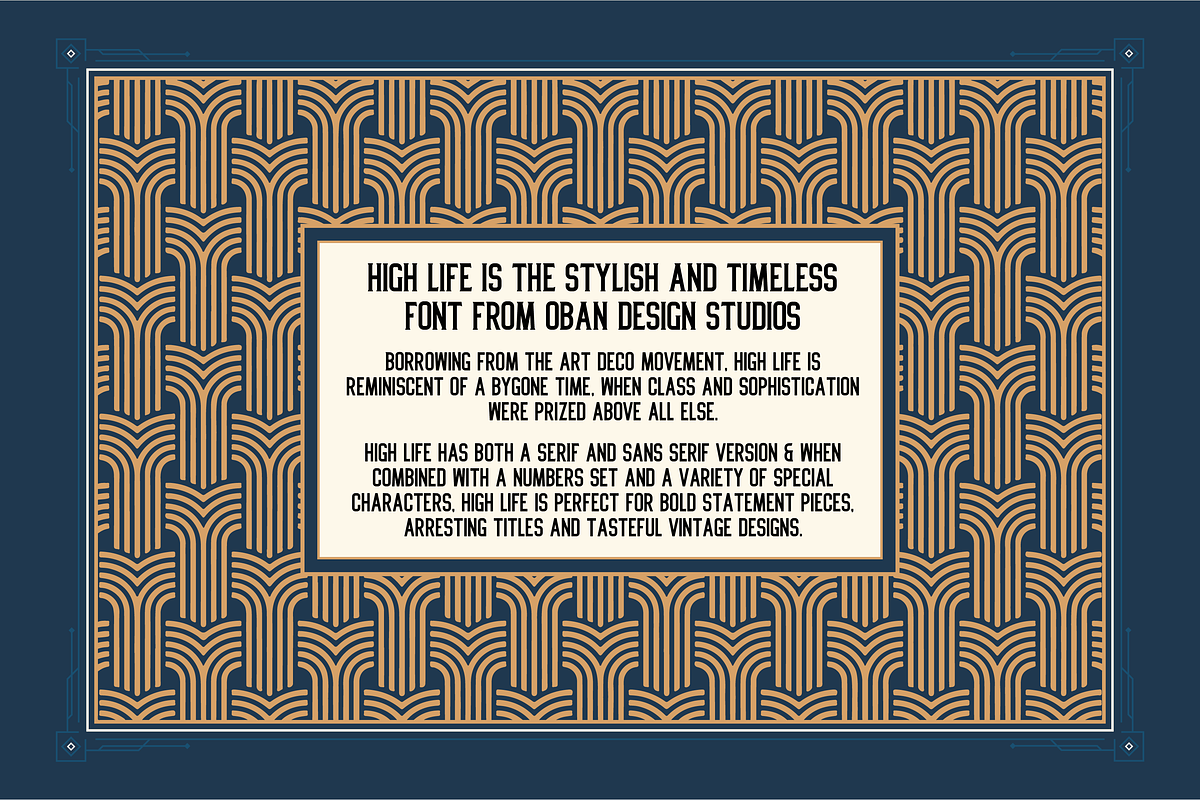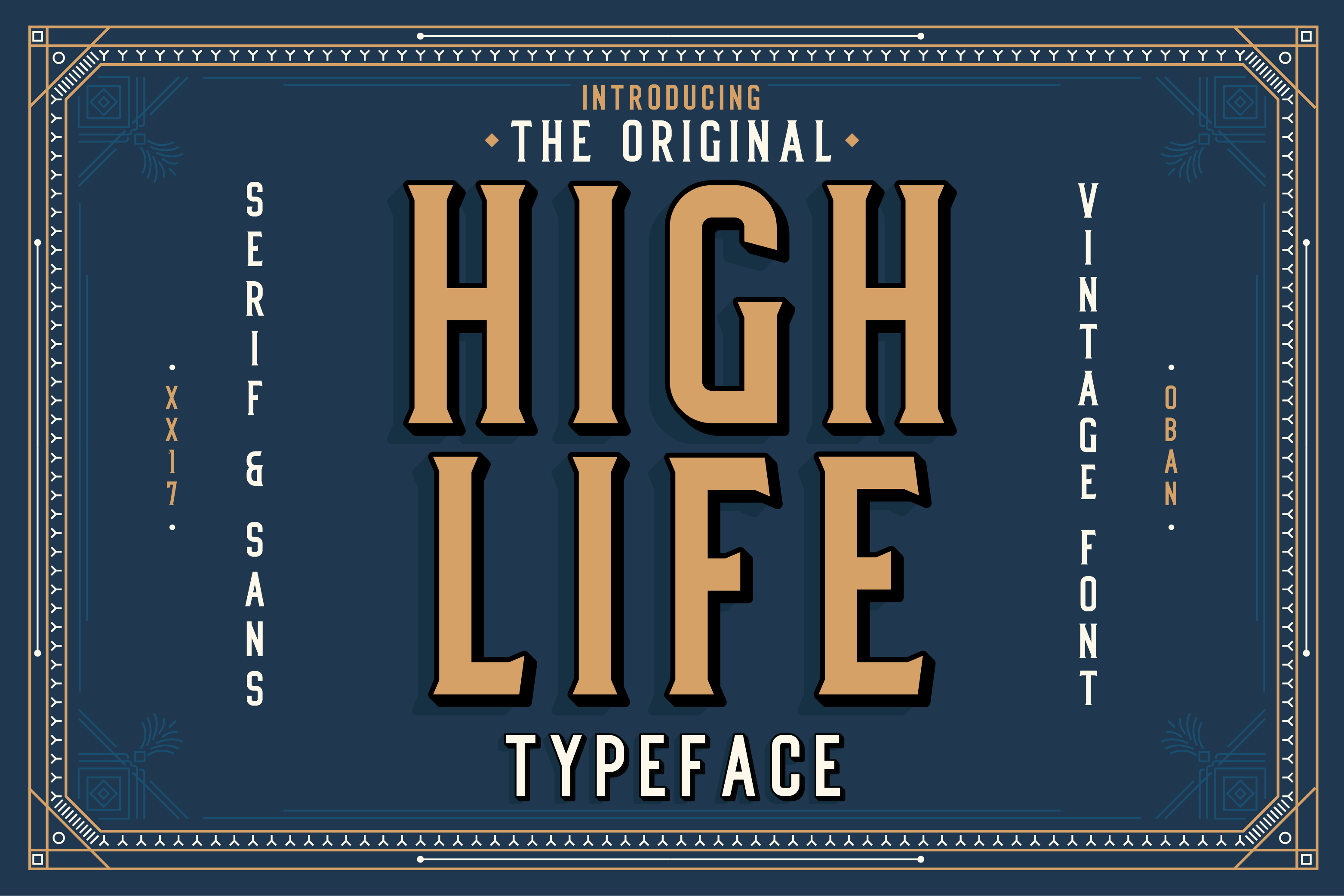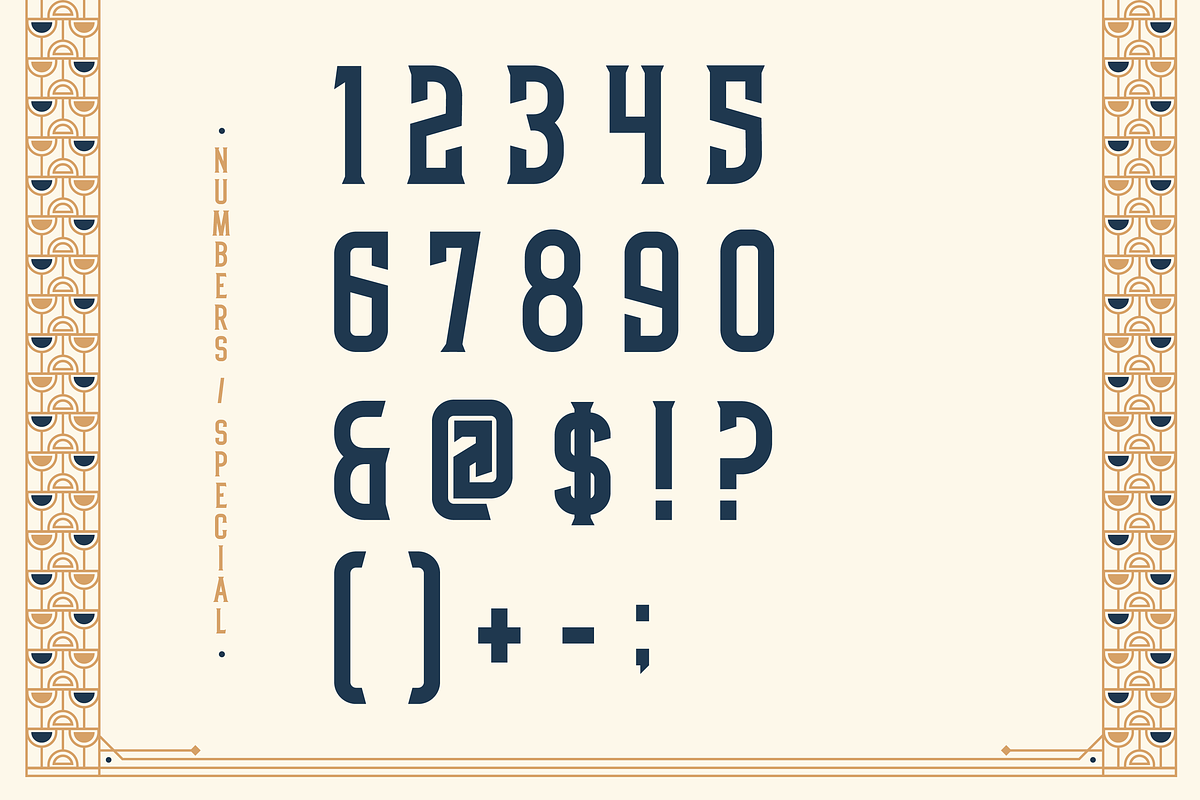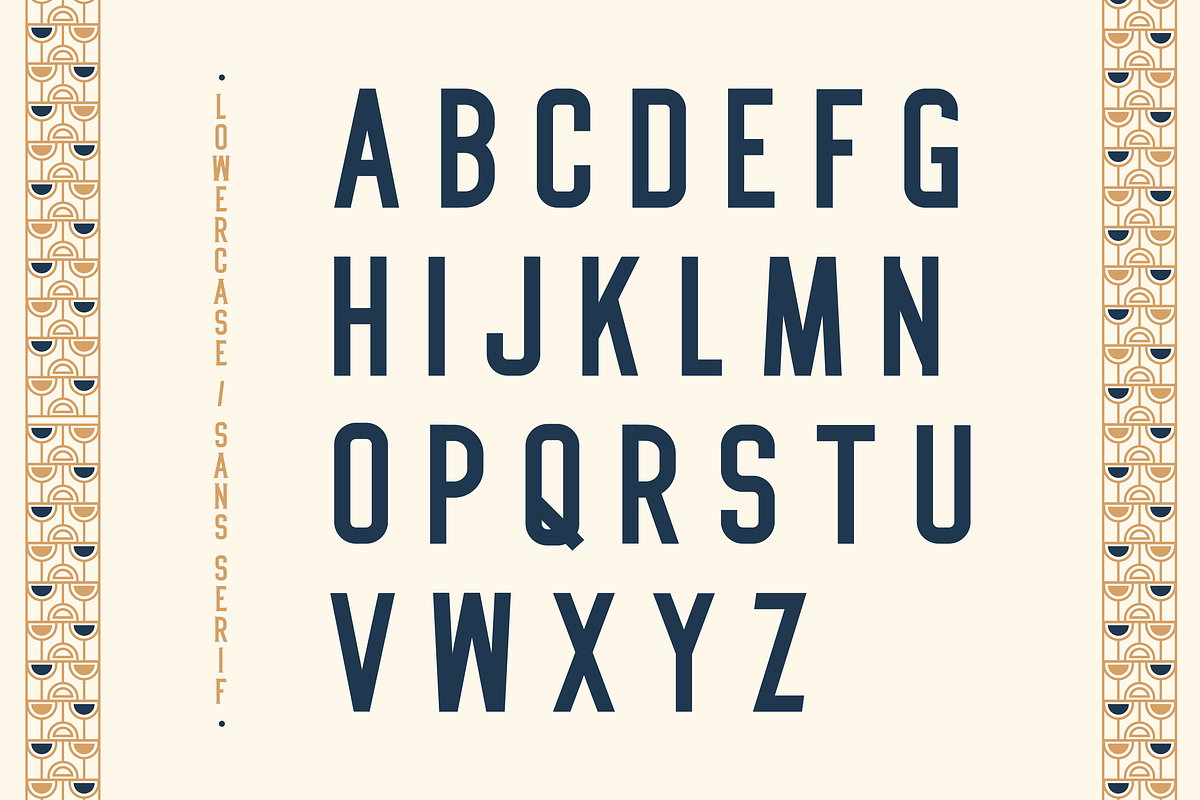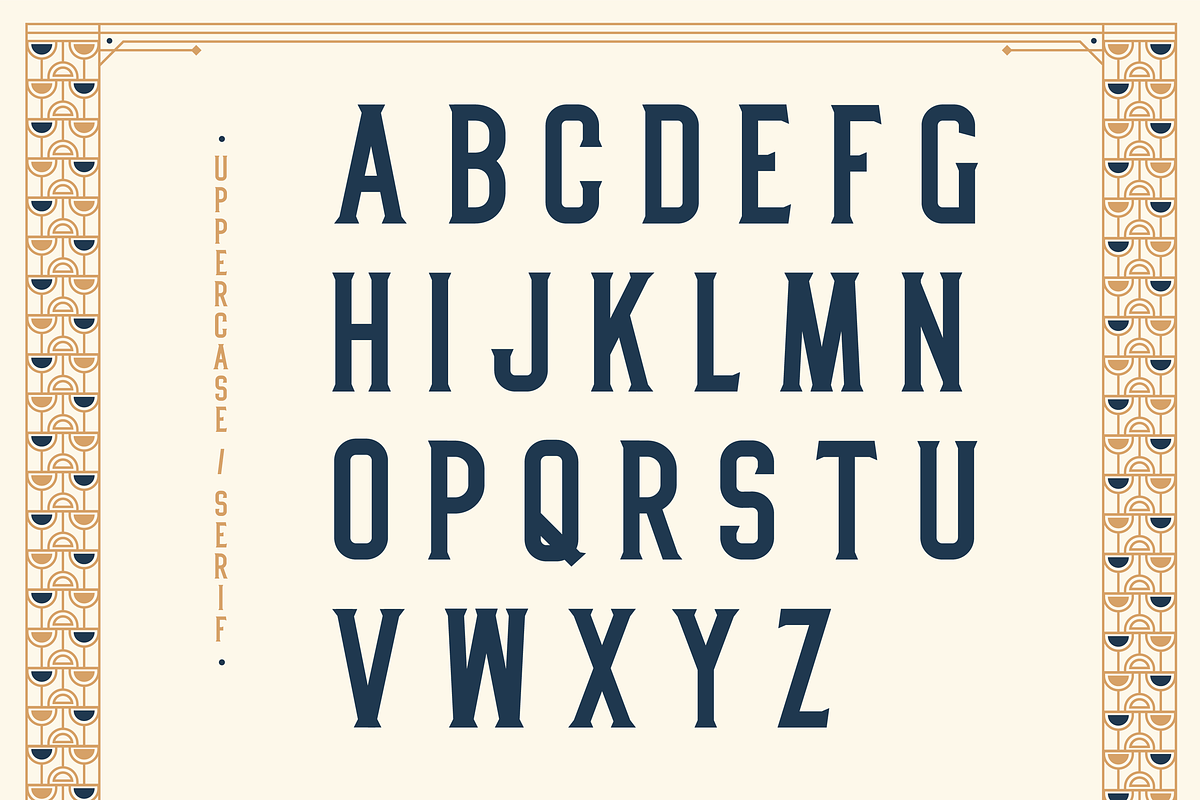
High Life Typeface
HIGH LIFE IS THE STYLISH AND TIMELESS FONT FROM OBAN DESIGN STUDIOS
Borrowing from the Art Deco movement, High Life is reminiscent of a bygone time, when class and sophistication were prized above all else.
High Life has both a serif & sans serif version and when combined with a numbers set and a variety of special characters, High Life is perfect for bold statement pieces, arresting titles and tasteful vintage designs.